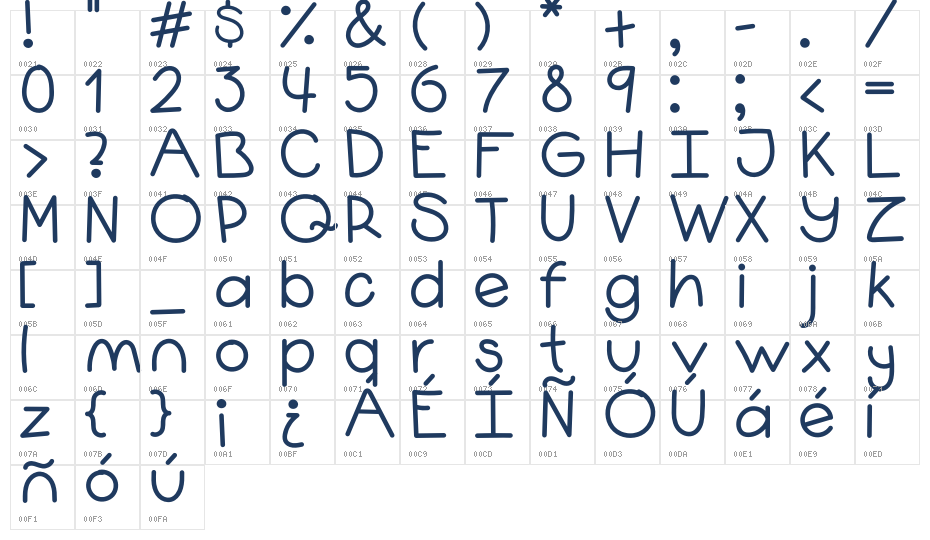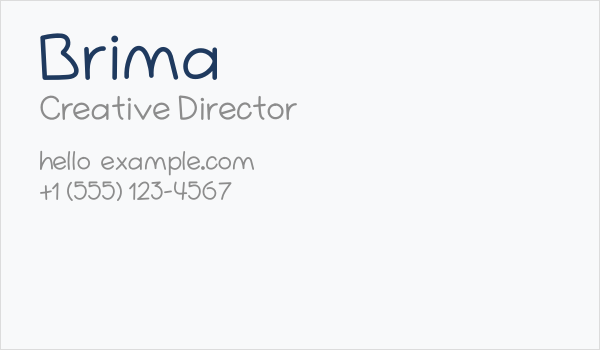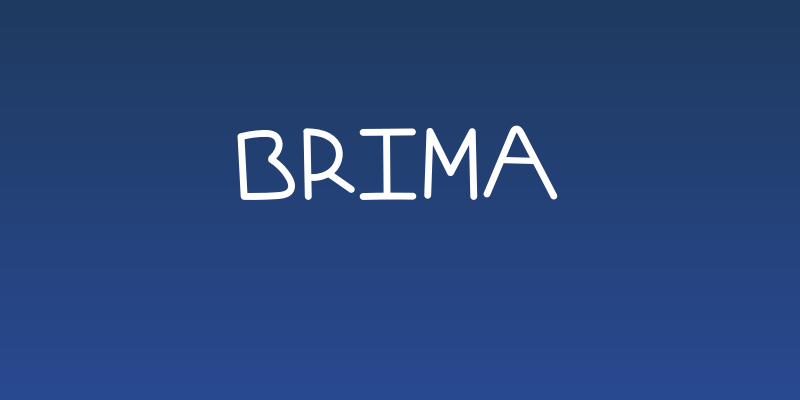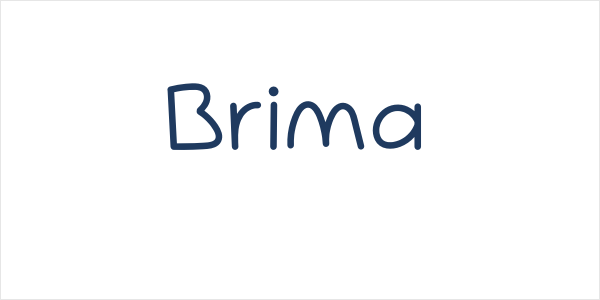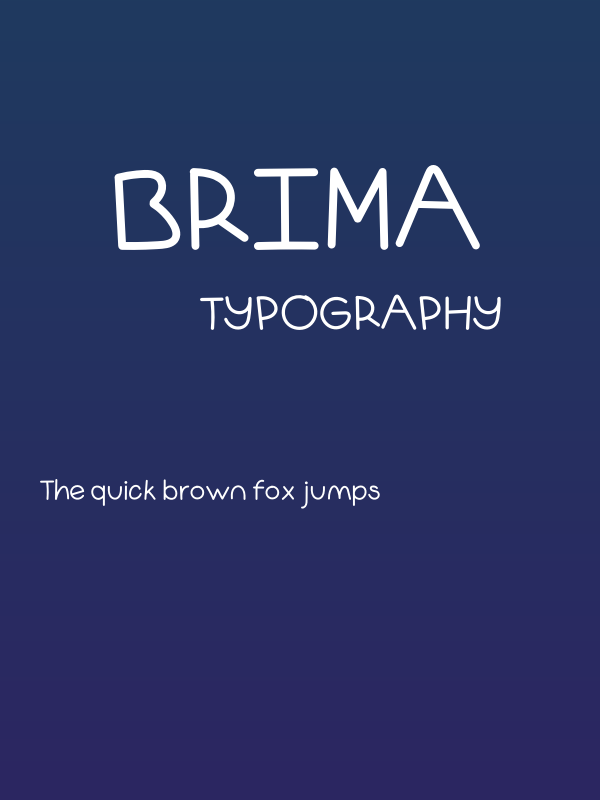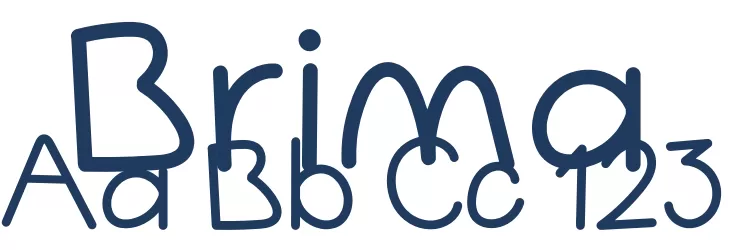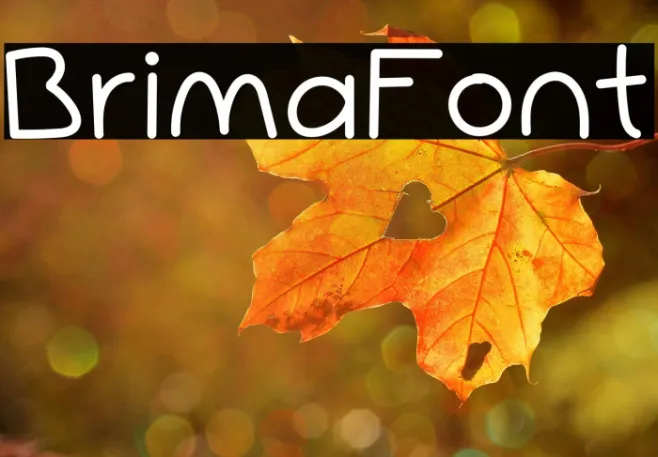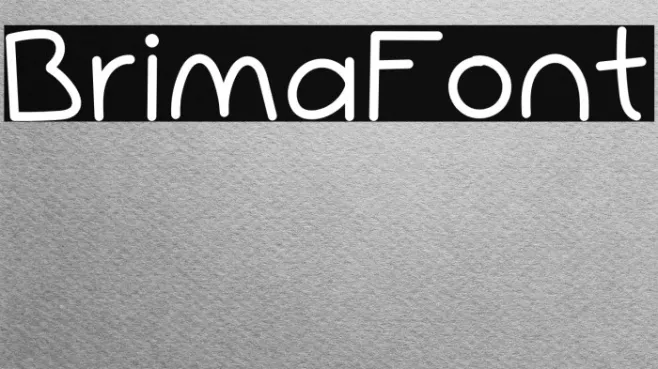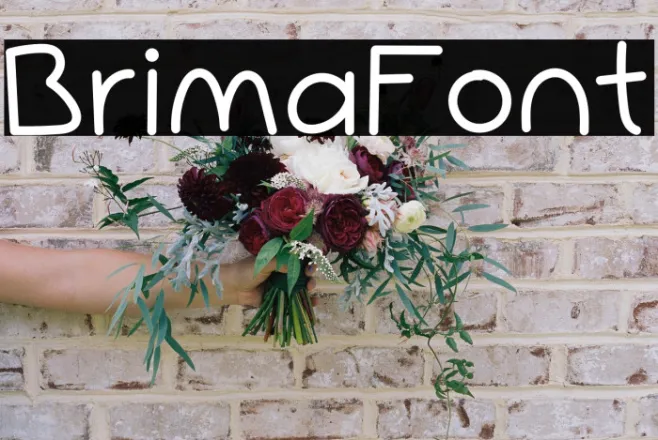
Brima Font
Brima Description
A playful, handwritten style font with irregular, casual letterforms and a slightly whimsical appearance.
| Overall Style | Casual, Playful, Handwritten |
| Use Case | Headlines, Personal projects, Creative branding |